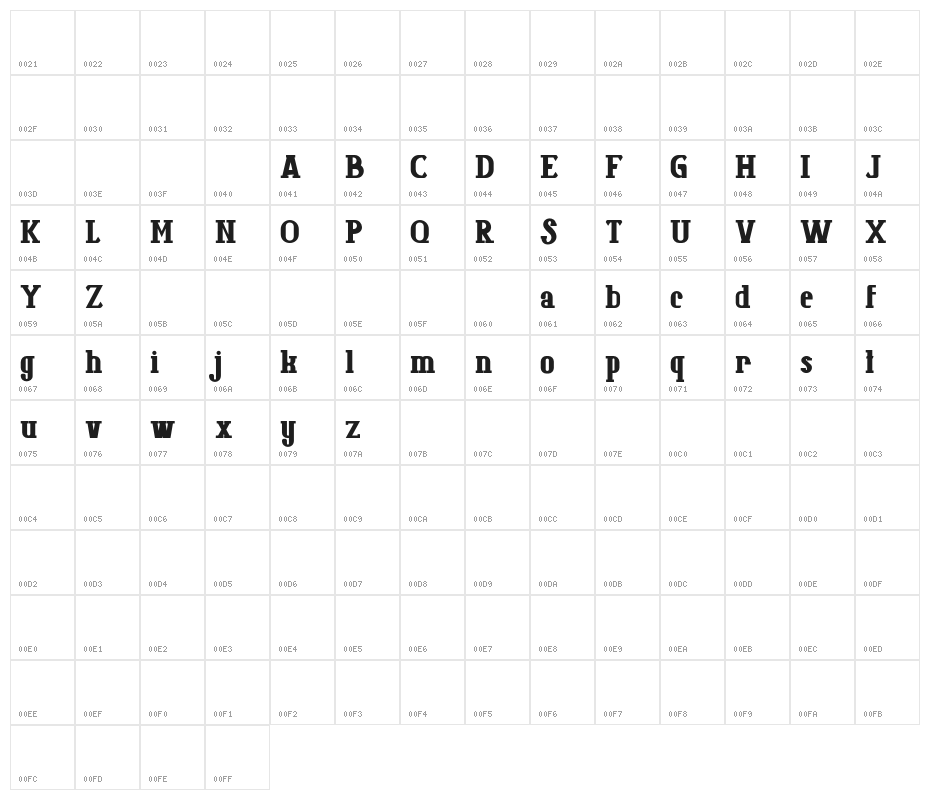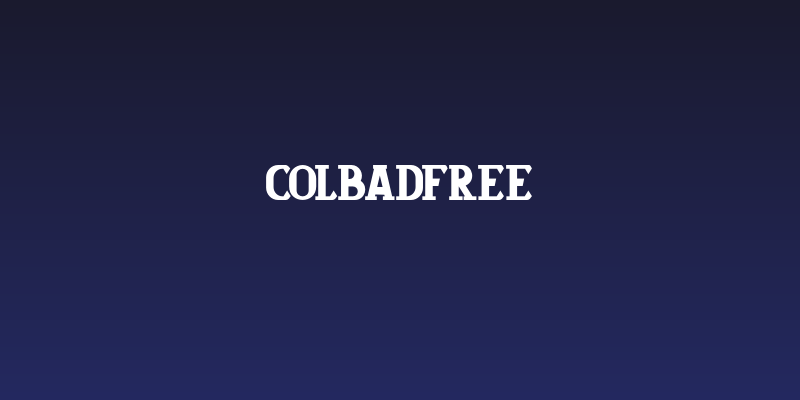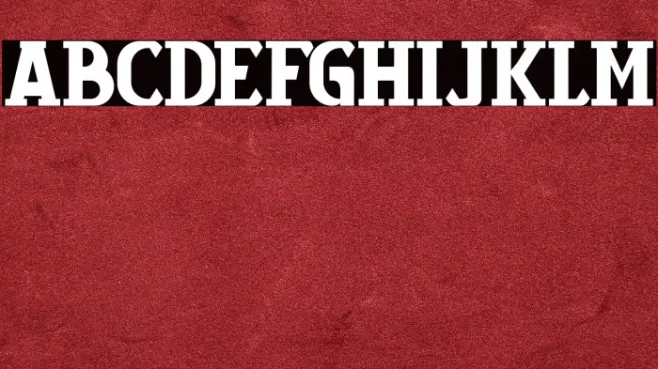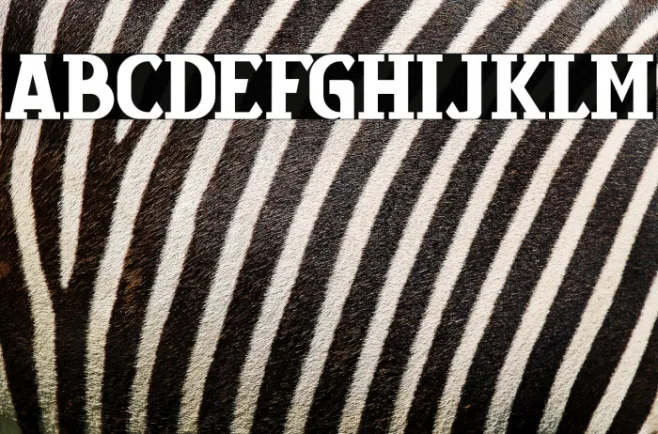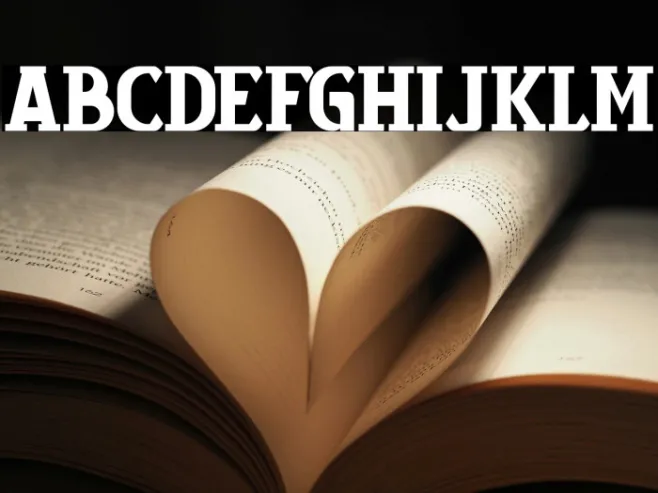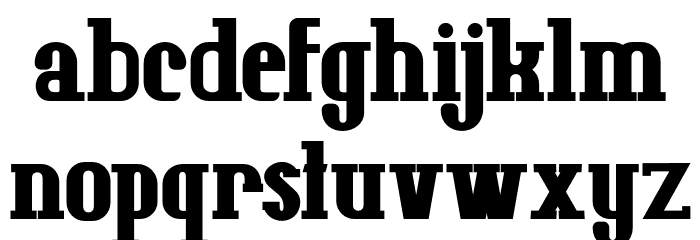
ColbadFREE Font
ColbadFREE Description
This font features bold, thick strokes with a strong presence, making it ideal for impactful designs. The uppercase letters are robust and commanding, while the lowercase letters maintain a consistent weight, offering a cohesive look. The serifs are pronounced, adding a touch of classic elegance to the overall style. The font's structure is solid, with a slight vintage feel, yet it remains versatile for modern applications. The characters are well-spaced, ensuring readability even at smaller sizes. This font's distinct style makes it suitable for a variety of creative projects.